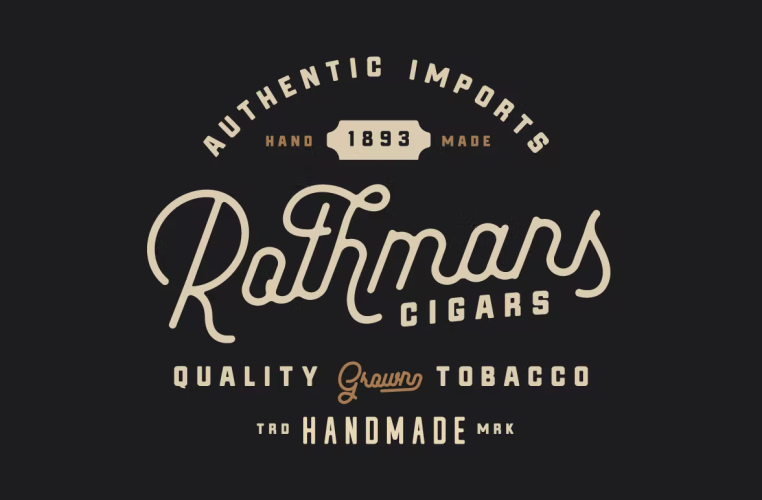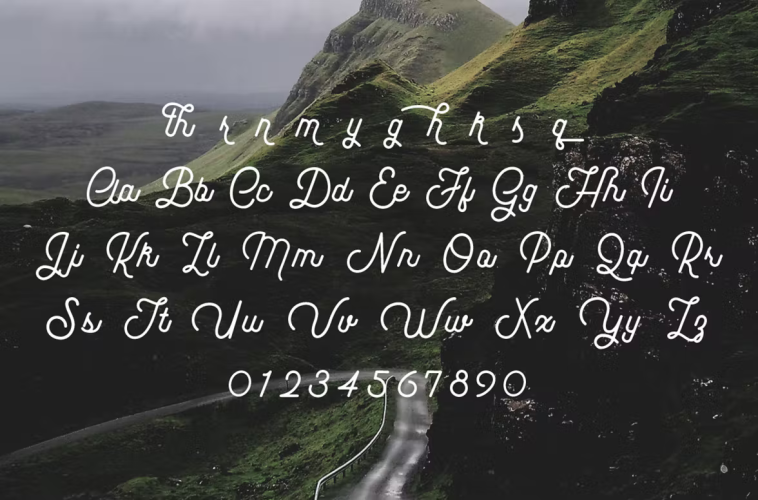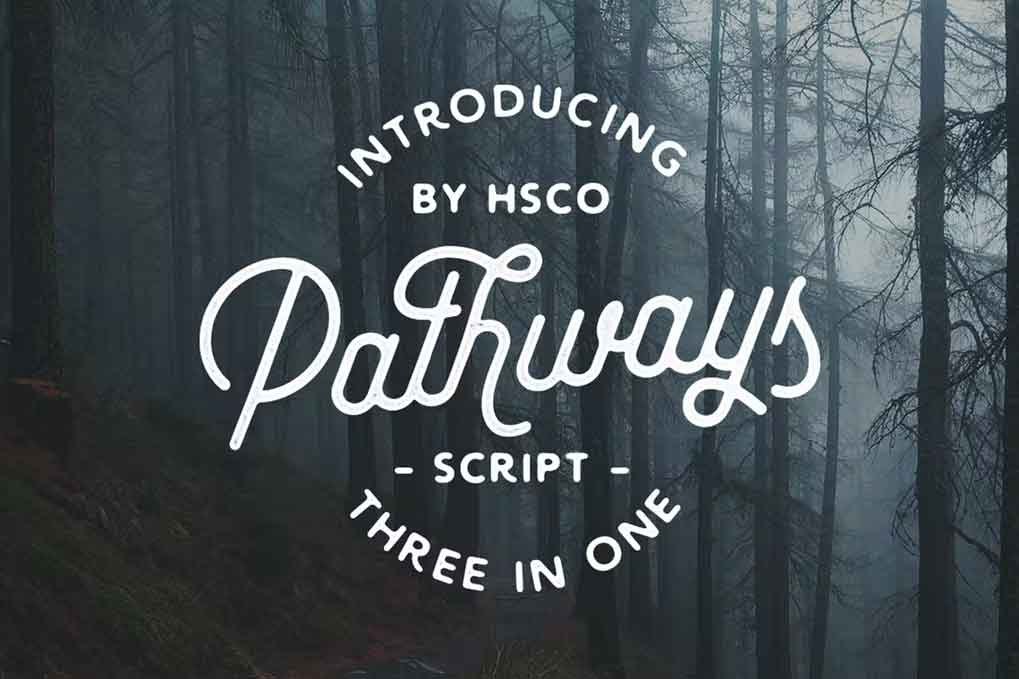
Pathways 4 Styles Font
Pathways | 4 Styles + Bonuses
“Pathways” is a script typeface available in 3 different styles: Circular Strokes, Rectangular Strokes and a Rough Version for a printed aesthetic. With many alternate characters & ligatures, Pathways is an extremely versatile Script Typeface. Developed with Logo & Label Designers in mind, Pathways will be a useful tool in your arsenal! This typeface will be a treat for you to use and will find it’s way into many projects with it’s clean and versatile styling.
Where Pathways 4 Styles Font works best
Pathways 4 Styles Font brings a personal, handwritten warmth to invitations, menus and place cards.
Craft brands — coffee, cosmetics, bakery — use scripts like Pathways 4 Styles Font for signature-style logos and labels.
Pair Pathways 4 Styles Font with a plain sans for quotes, stories and Pinterest pins that feel handmade.
What is Pathways 4 Styles Font good for?
Pathways 4 Styles Font is a Script And Handwritten typeface tagged Branding, Clean, Packaging, Script. It works well for headlines, logos, posters, social media graphics and branding projects that need a distinctive script and handwritten look.